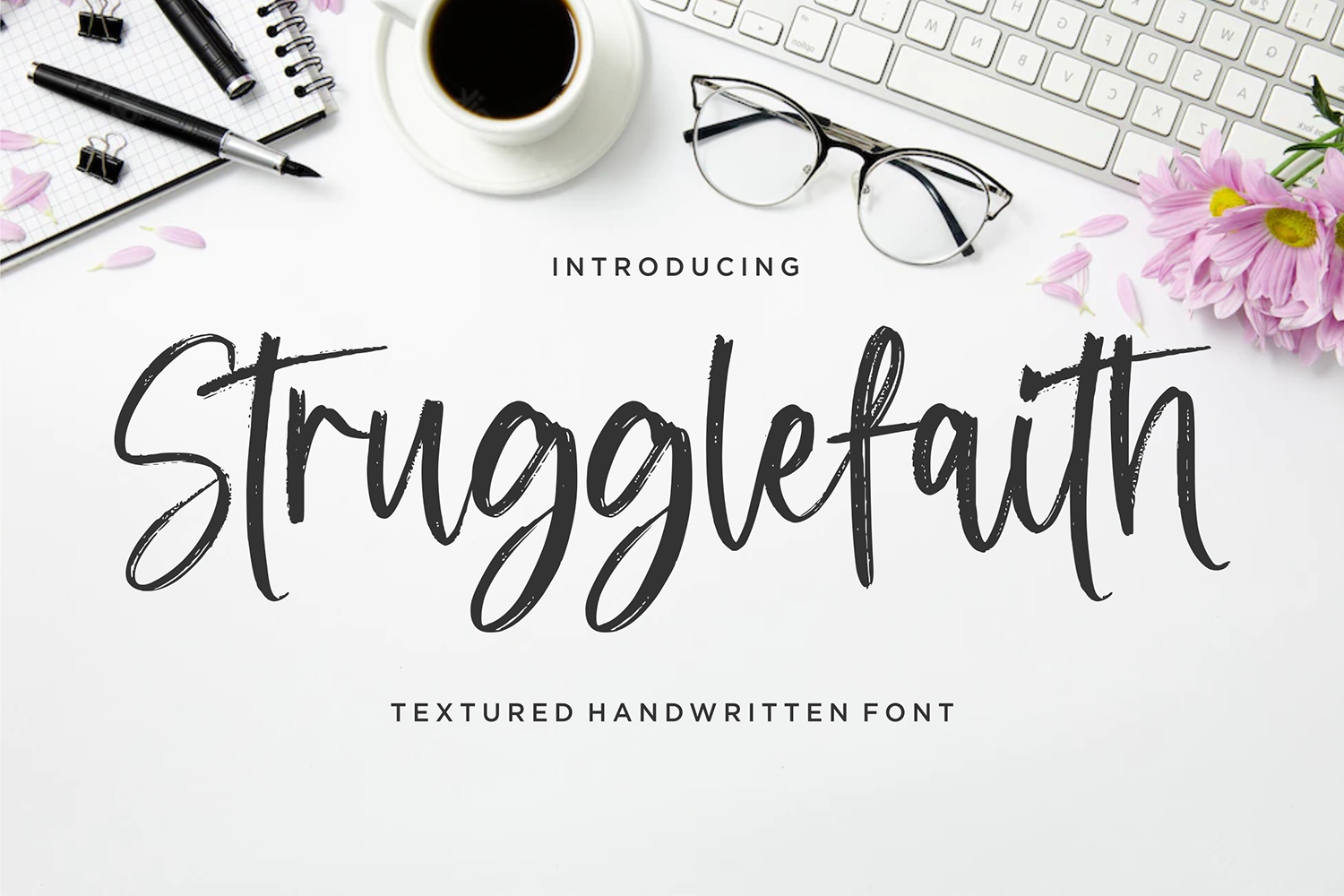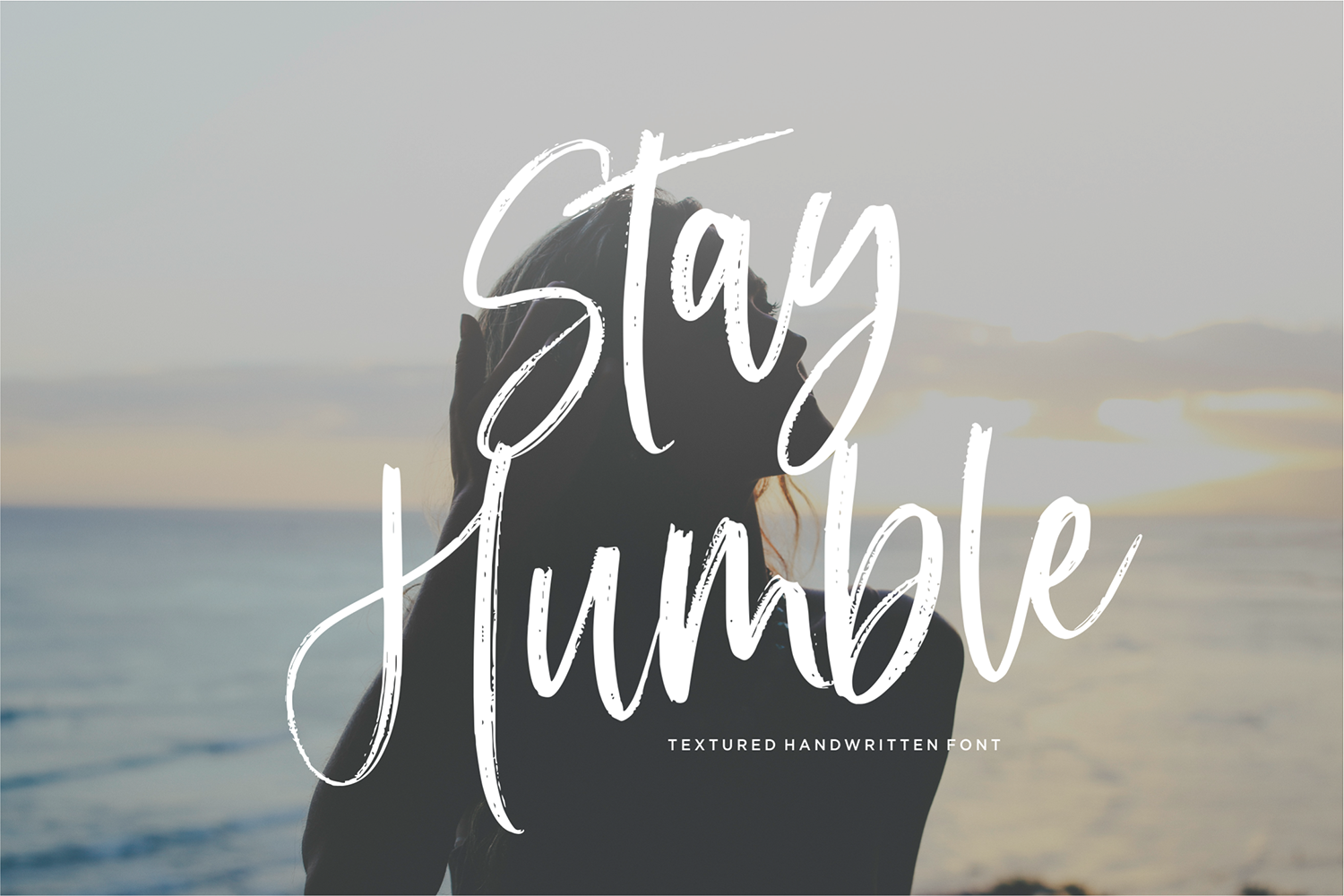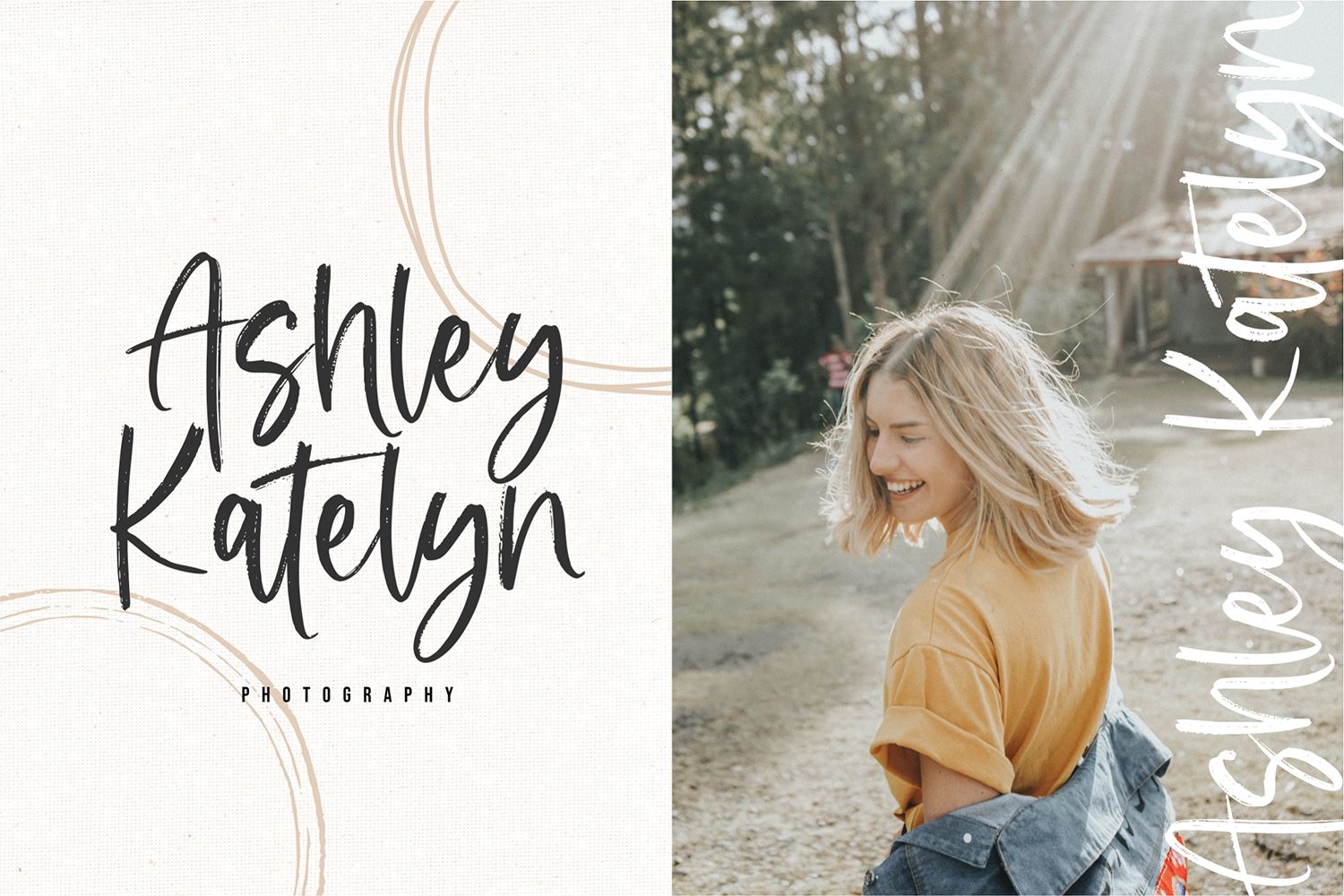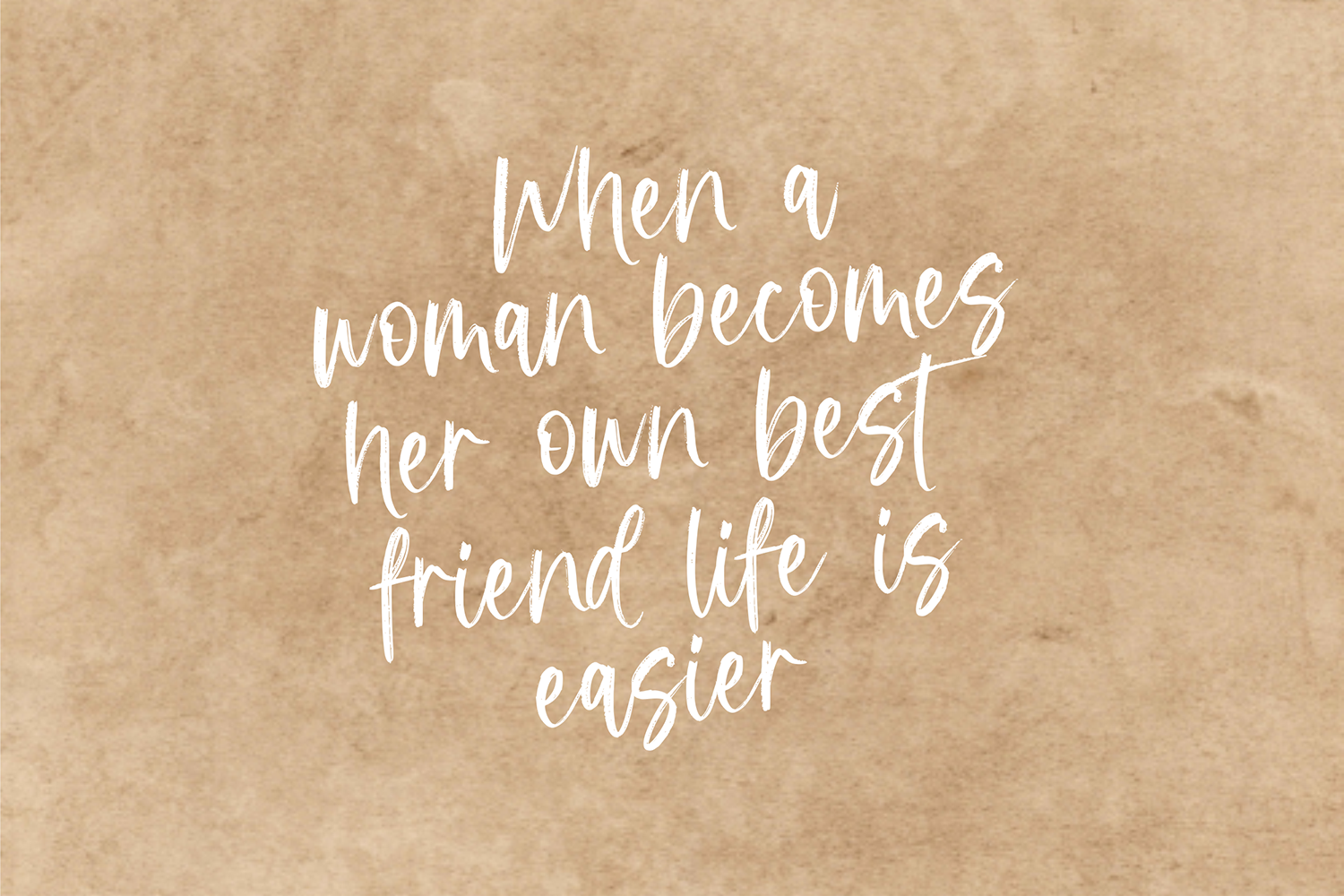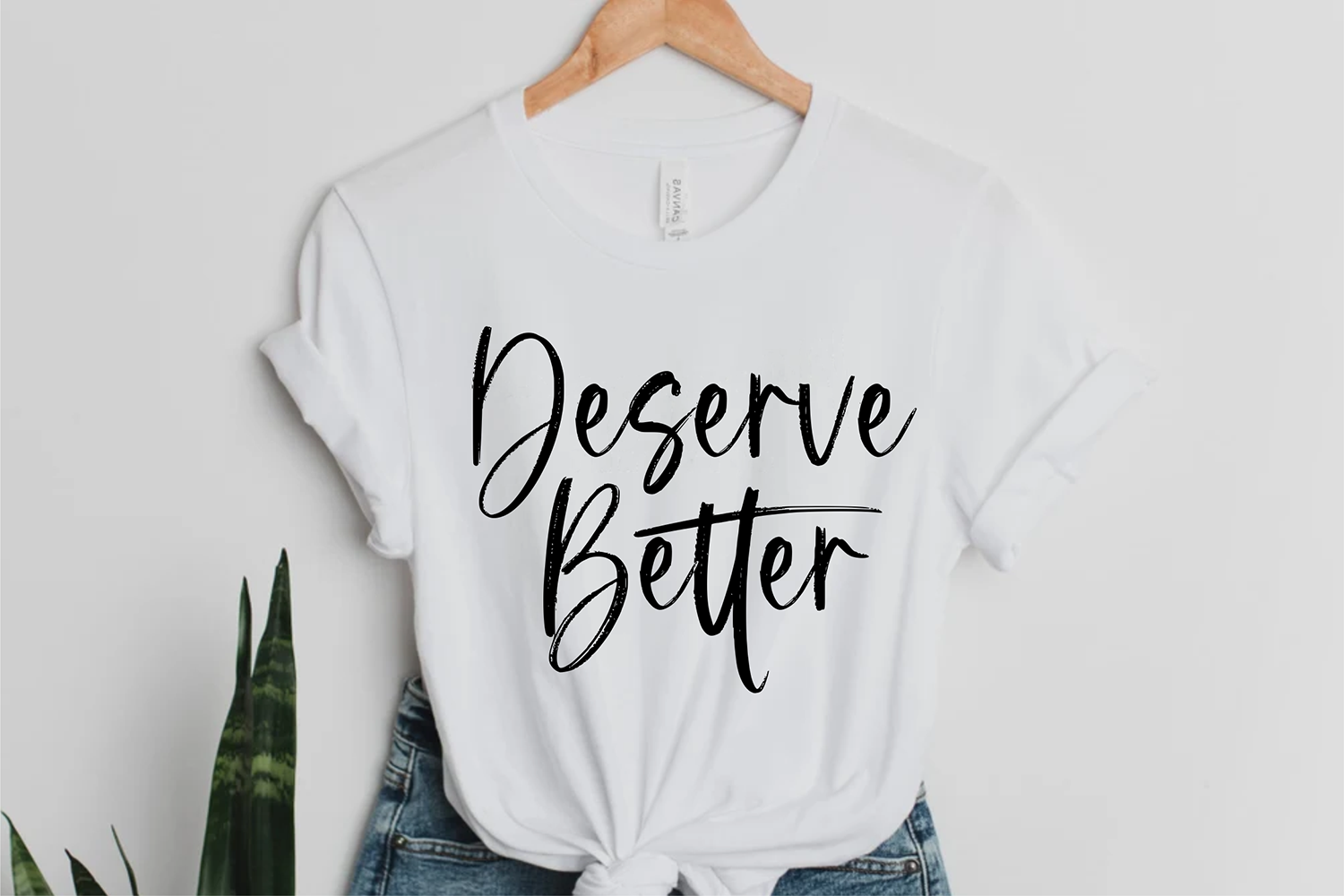
Strugglefaith Free Font
Strugglefaith Free Font is a textured handwritten font. Strugglefaith is perfect for product packaging, branding project, magazine, social media, weddings, or just used to express words above the background. This free typeface was designed by a talented Qwrtype Foundry. If you like it don’t forget to check out the full version.